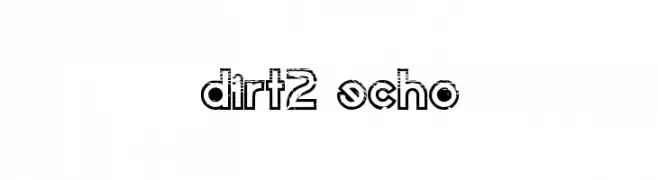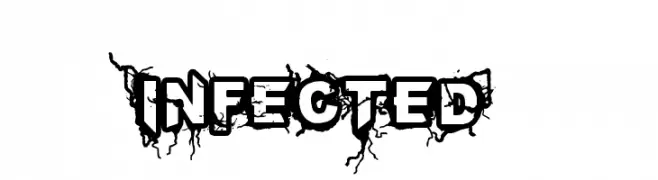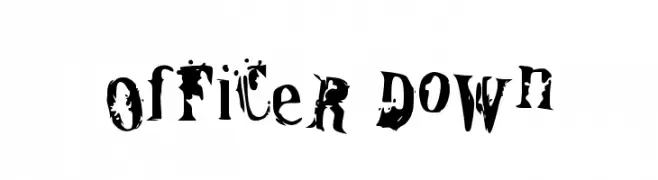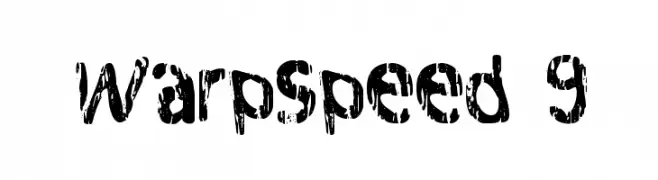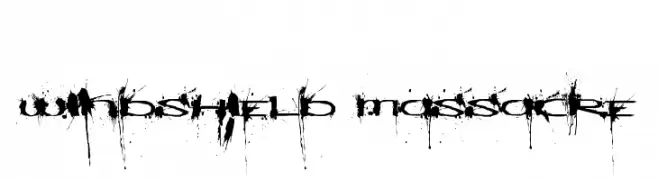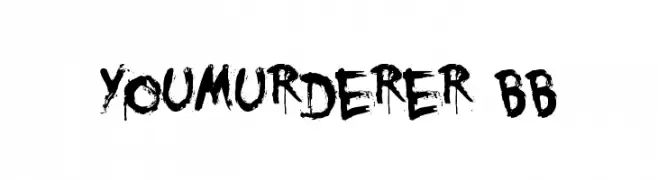
A distressed, grungy font with irregular edges and a chaotic appearance.
A bold, distressed font with a grungy, vintage texture and shadow effect.
A bold, grungy font with splattered, chaotic elements for an edgy look.
A distressed, grungy font with a bold, hand-painted appearance.
A bold, distressed font with a grungy, cracked texture and jagged edges.
A bold, distressed font with outlined characters and a grungy texture.
A bold, distressed font with a grungy, textured style.
A bold, grungy font with a distressed, hand-painted appearance.